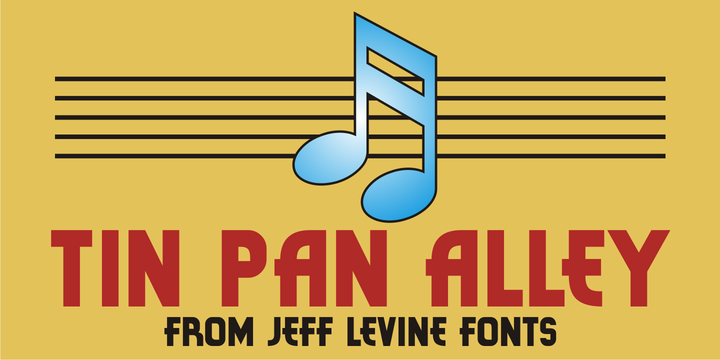
Tin Pan Alley JNL
by Jeff Levine
According to Wikipedia, Tin Pan Alley is the name given to the collection of New York City music publishers and songwriters who dominated the popular music of the United States in the late 19th century and early 20th century. The name originally referred to a specific place: West 28th Street, between Fifth and Sixth Avenues in Manhattan.
With this in mind, Tin Pan Alley JNL, a typeface based on the bold hand lettering from a vintage piece of sheet music is aptly named.